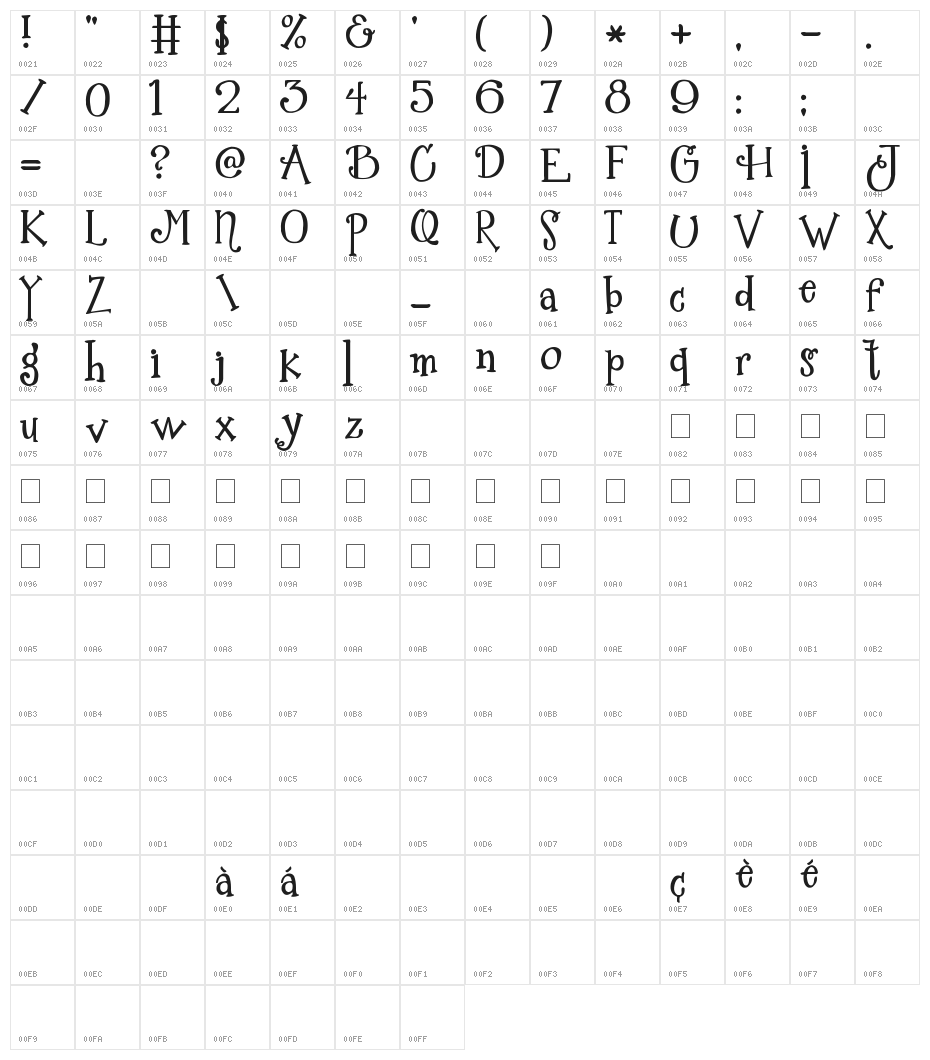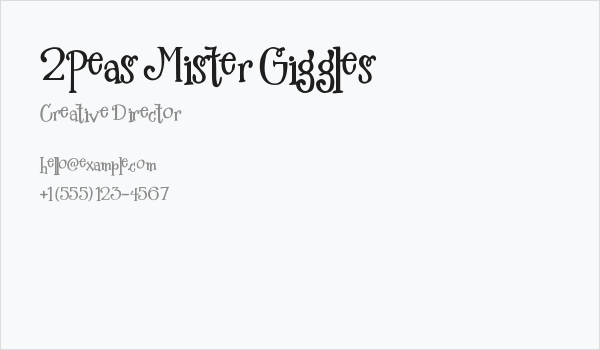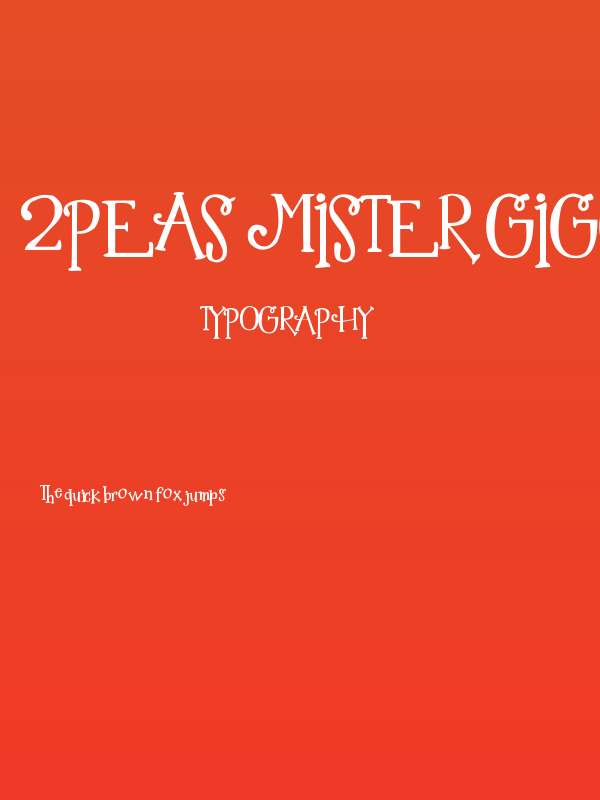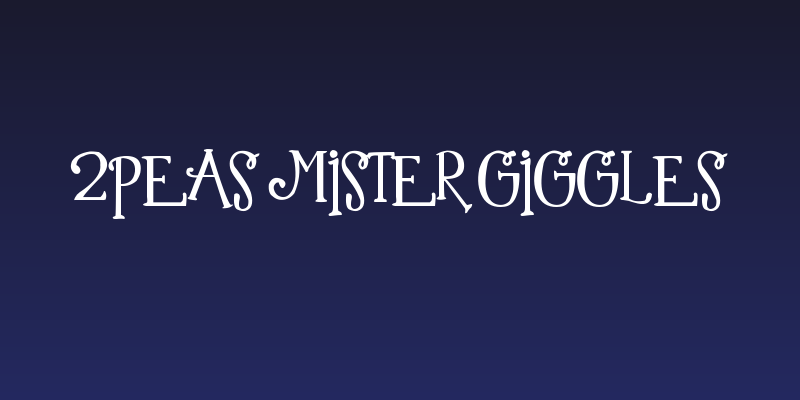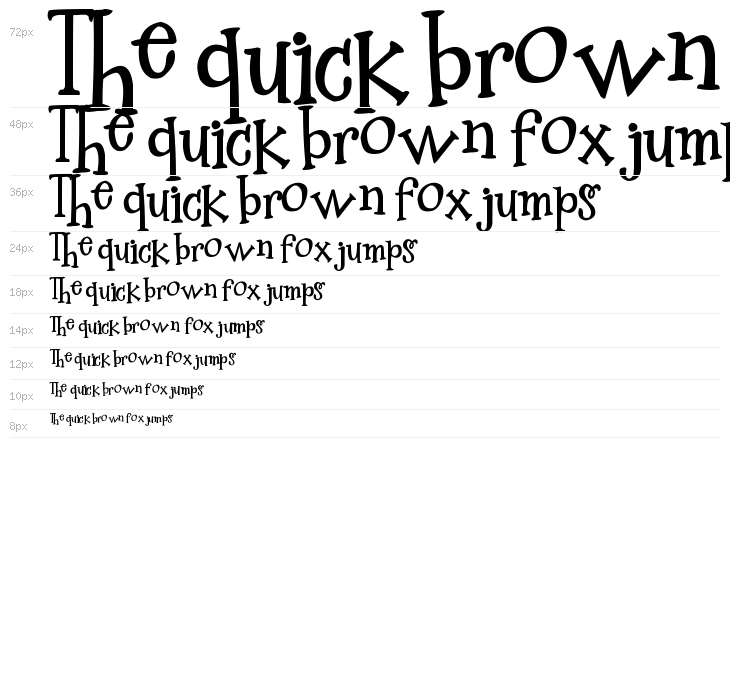
2Peas Mister Giggles Font
2Peas Mister Giggles Description
This playful and whimsical font features a unique blend of quirky curves and exaggerated serifs, giving it a lively and animated appearance. The uppercase letters are characterized by their tall, narrow forms with distinctive loops and swirls, while the lowercase letters maintain a consistent style with rounded edges and playful embellishments. The numbers and special characters follow the same whimsical design, making them perfect for creative and fun projects. The font's overall style is both decorative and engaging, ideal for capturing attention and adding a touch of humor and charm to any design.